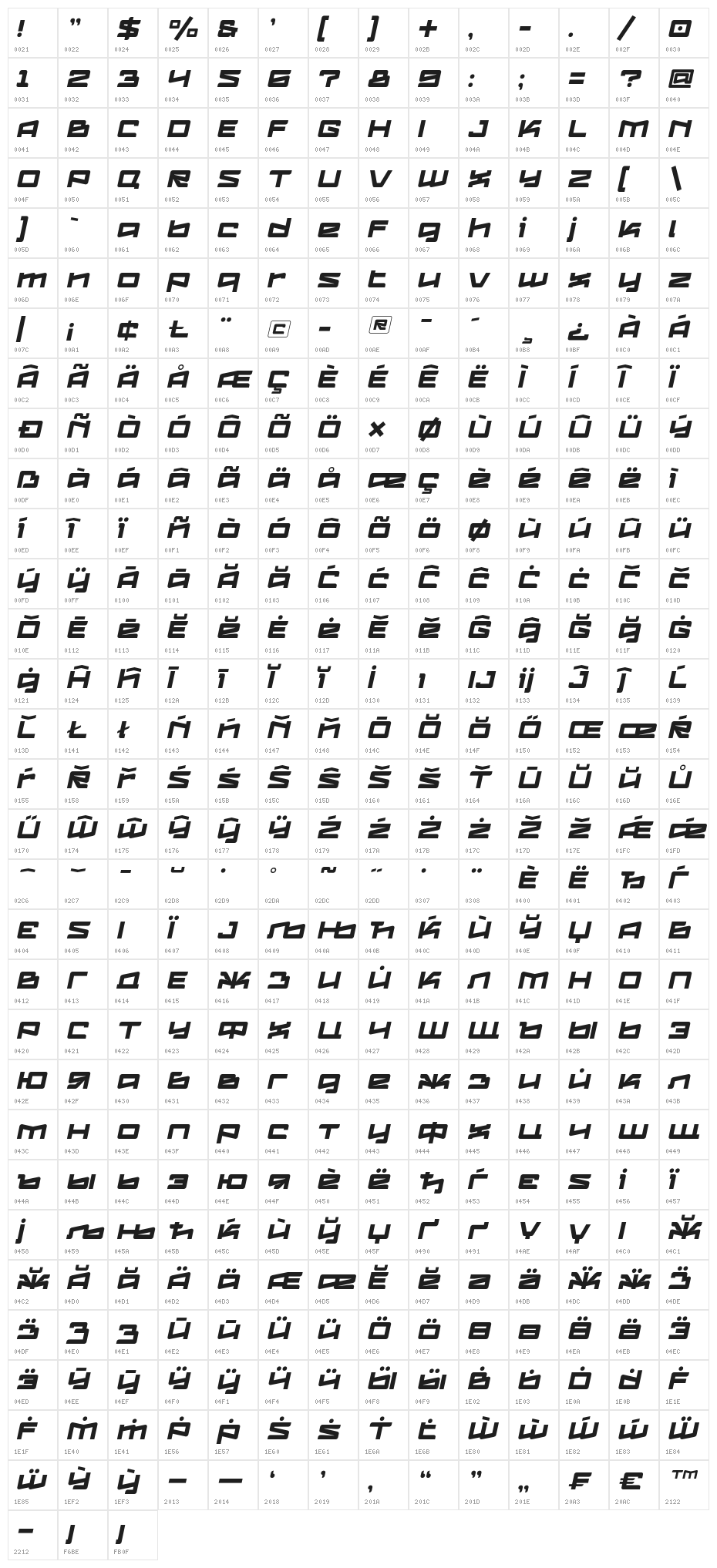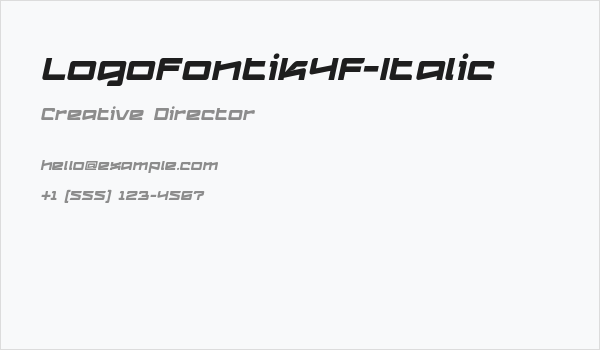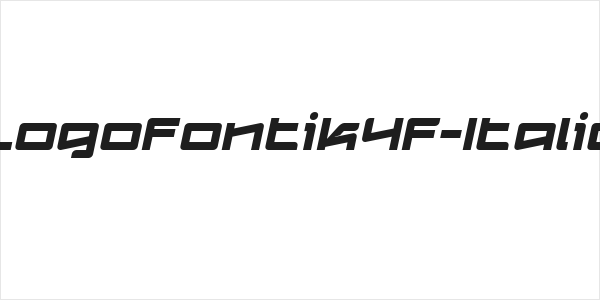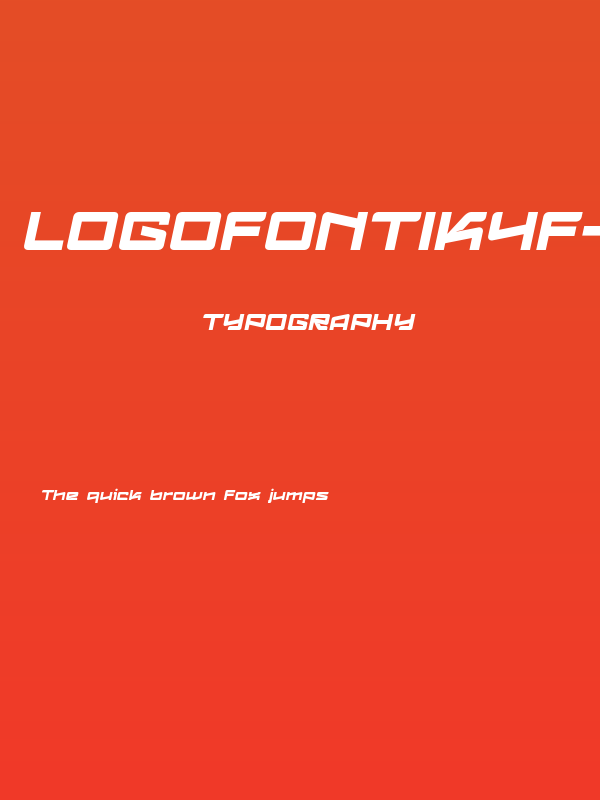
Logofontik4F-Italic Font
Logofontik4F-Italic Description
This font features a modern, italicized style with a distinct slant, giving it a dynamic and forward-moving appearance. The characters are bold and angular, with sharp edges and a futuristic feel. The uppercase and lowercase letters maintain a consistent style, with a slight variation in size and shape to differentiate them. Numbers and special characters are designed to match the overall aesthetic, ensuring a cohesive look across all text. The font's unique design makes it suitable for projects that require a contemporary and edgy vibe.
| Use Case | Logos, Headlines, Branding |
| Proposed Projects | Ideal for branding, logos, sports team merchandise, and tech-related designs. |